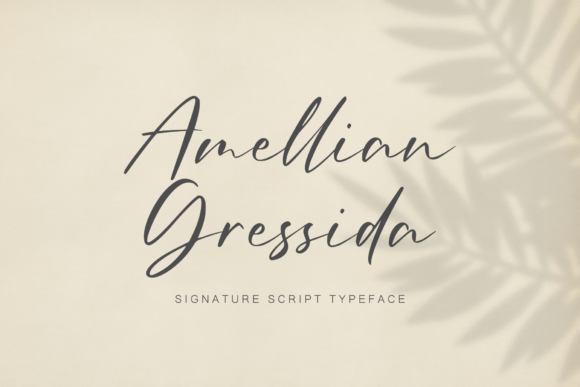
The Designer’s Delight: Amellian Gressida Font
Have you ever been in the middle of a design project, and suddenly, you’re stuck on finding the perfect font? I recall a recent experience where I was working on a branding project for a luxury client, and I just couldn’t find a signature typeface that exuded elegance and sophistication. That’s when I stumbled upon the Amellian Gressida Font, and it completely transformed my design. In this article, I’ll share my journey with this beautiful font, its features, and how you can make the most of it in your designs.
I’m excited to share my thoughts on the Amellian Gressida Font. Here’s what I love about it:
• ✨ Gorgeously crafted letters with intricate details
• ✅ Modern and elegant design that’s perfect for luxury brands
• 💫 Highly versatile and can be used for various design projects, from logos to social media graphics
• 🔥 Excellent for creating stunning headlines and titles
While I adore this font, there are a few minor quirks to be aware of:
• 🤔 Limited use of lowercase letters, which might not be ideal for body text
• ⚠️ Some users might find the font a bit too ornate for certain design projects
Amellian Gressida was created with the goal of crafting a modern signature typeface that exudes elegance and sophistication. The font’s designer drew inspiration from classic calligraphy and modern digital design, resulting in a unique and versatile font that’s perfect for luxury brands and creative projects.
What type of designs is Amellian Gressida best suited for? Amellian Gressida is ideal for luxury branding, logos, social media graphics, and any design project that requires a touch of elegance and sophistication.
Is Amellian Gressida a difficult font to use? Not at all! Amellian Gressida is easy to use, even for beginners. With its intuitive design and extensive OpenType features, you’ll be creating stunning designs in no time.
Amellian Gressida is a beautiful, modern signature typeface that can elevate any design project. With its gorgeously crafted letters, versatile design, and extensive OpenType features, it’s perfect for designers, crafters, and creative hobbyists looking to add a touch of elegance and sophistication to their work.